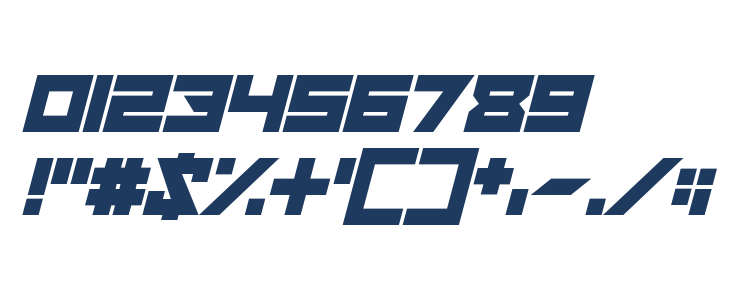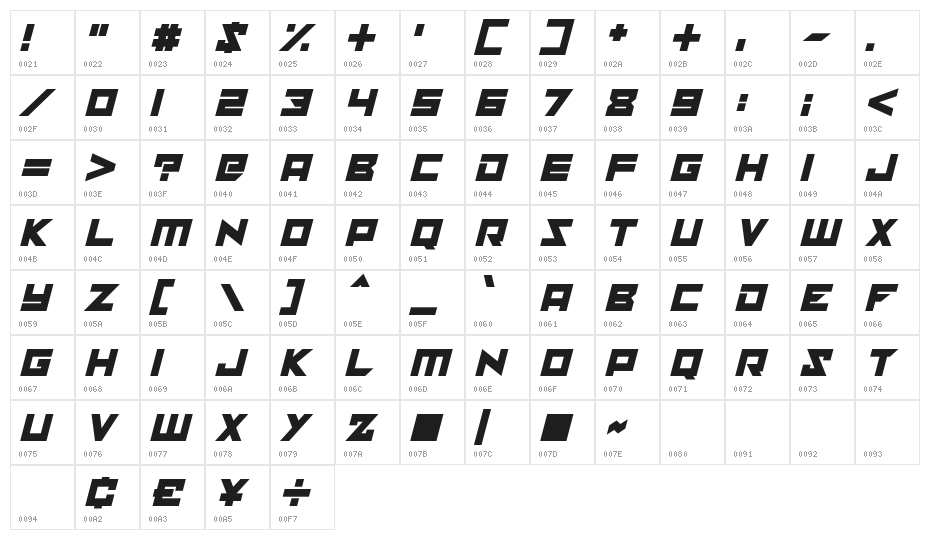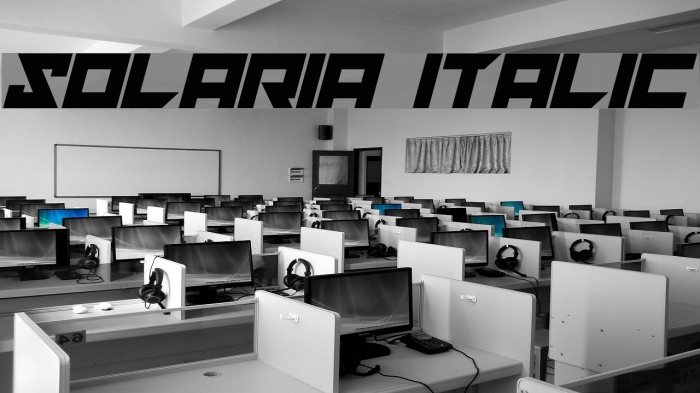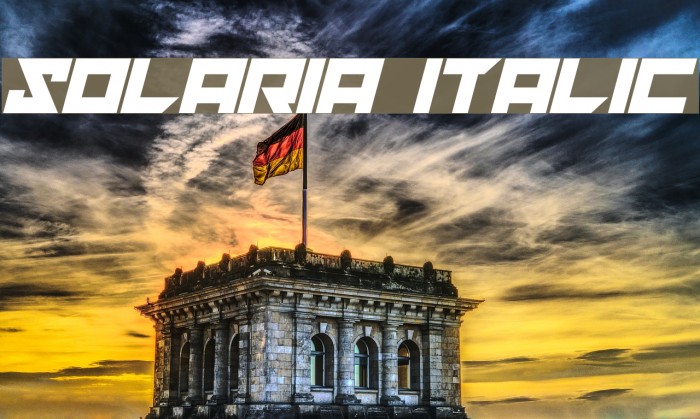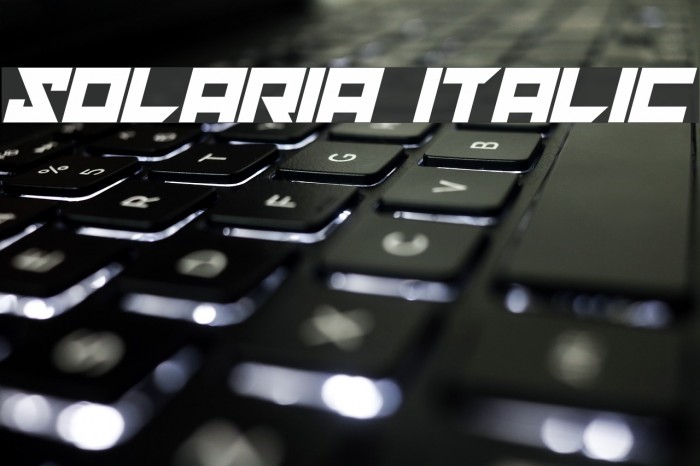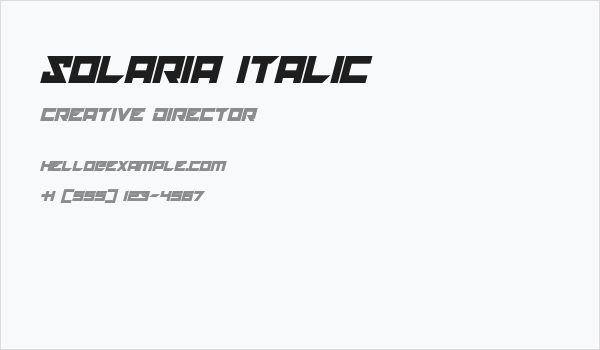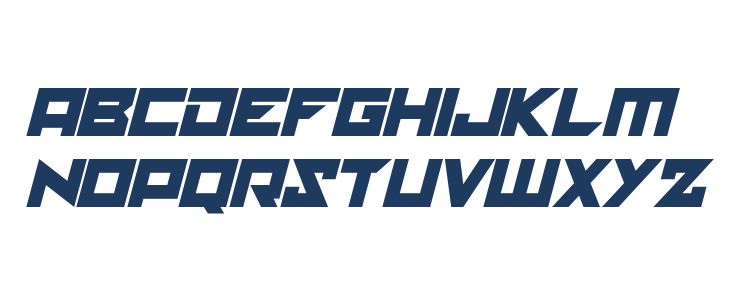
solaria Italic Font
This font exhibits a bold, futuristic style with sharp, angular lines and a distinct italic slant. The characters are designed with a strong geometric influence, featuring thick strokes and a consistent, dynamic forward tilt that conveys motion and energy. The uppercase and lowercase letters maintain a uniform height, contributing to a cohesive and streamlined appearance. The numerals and special characters are crafted with the same angular precision, ensuring visual harmony across all elements. The overall design is striking and modern, making it suitable for projects that require a bold and impactful visual statement.
| Proposed Projects | Ideal for sci-fi themed designs, video game graphics, technology branding, and dynamic posters. |